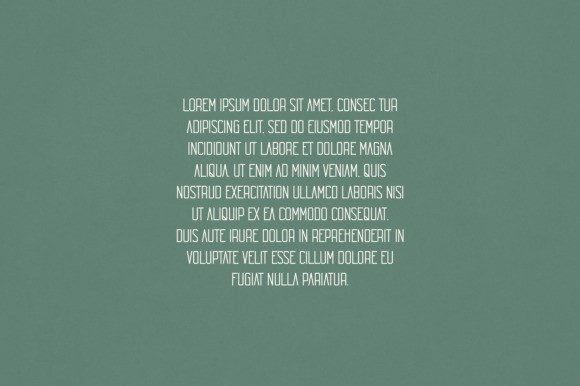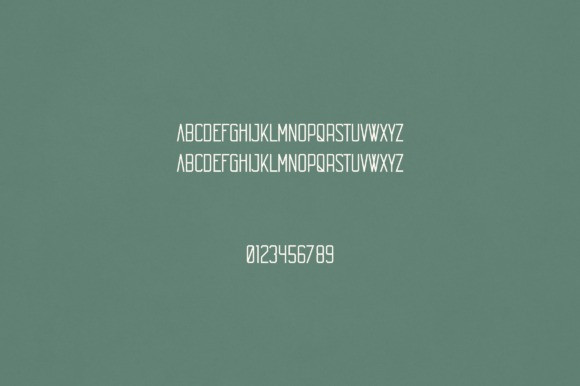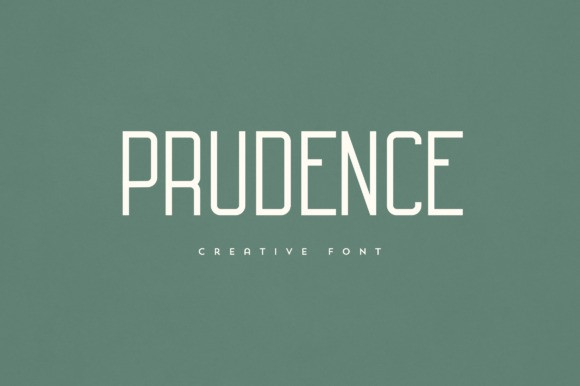
Prudence Font
Prudence Font is an elegant and versatile display font that will make your typography truly unique! It will enchant every logo, branding, headline, or plain text!